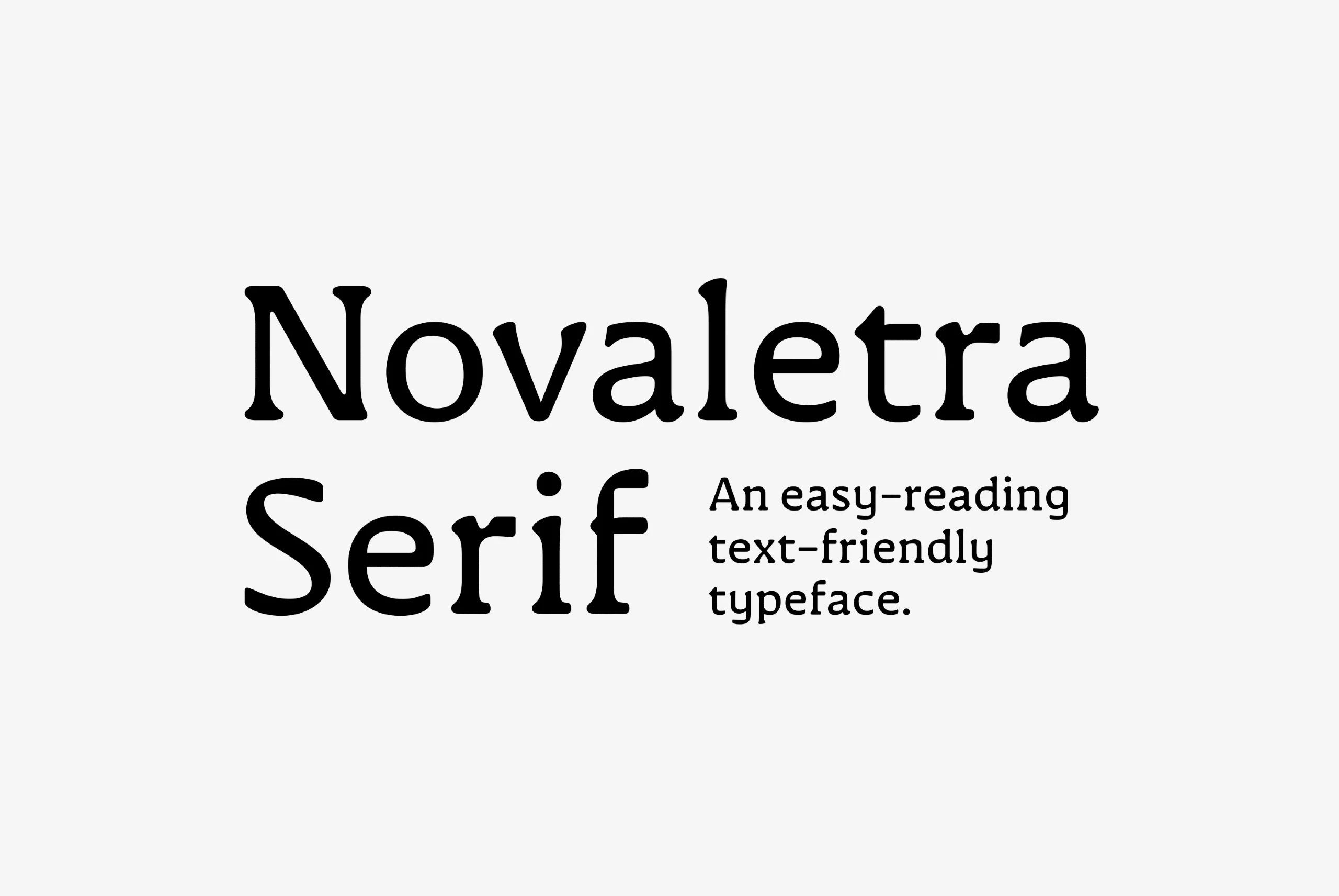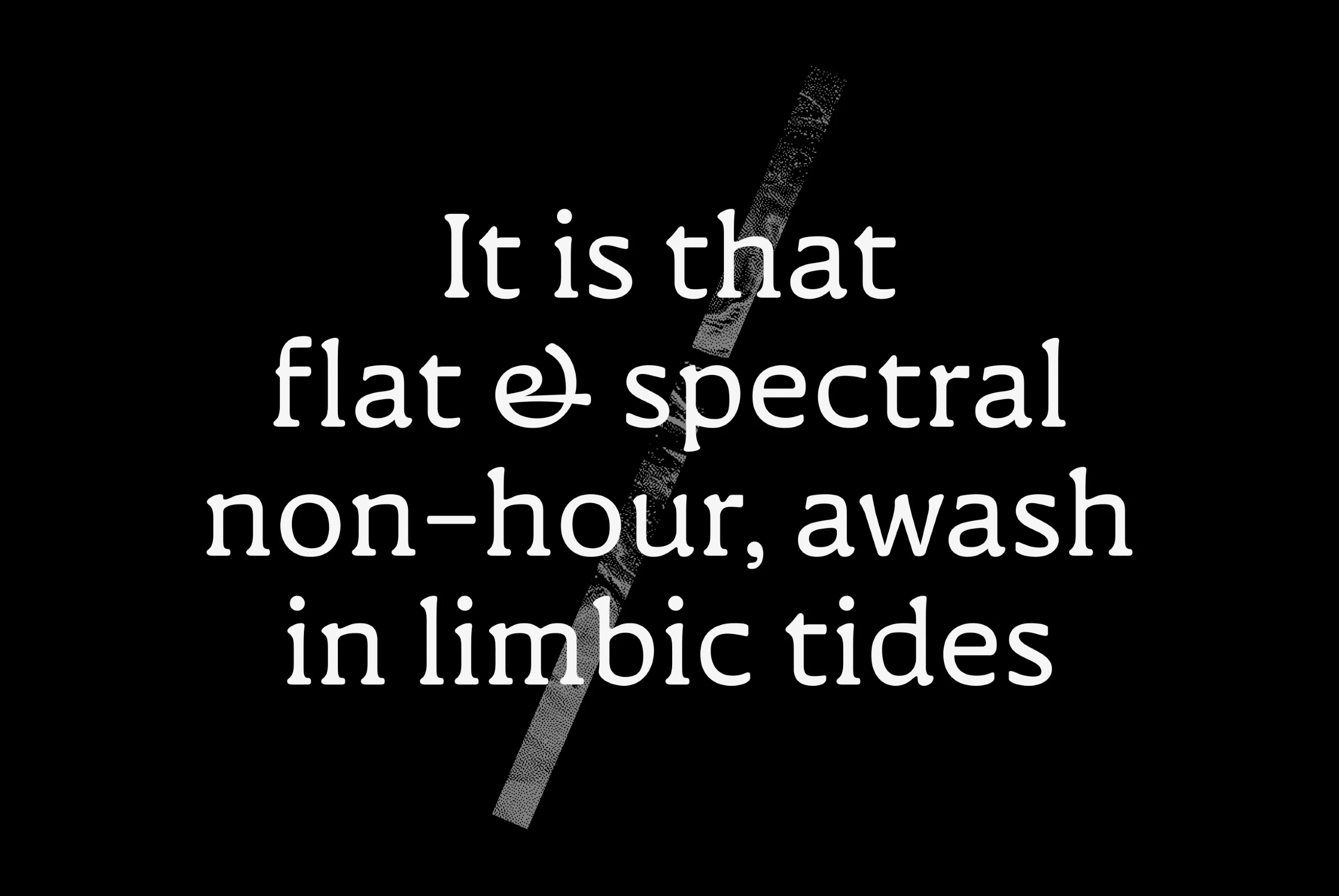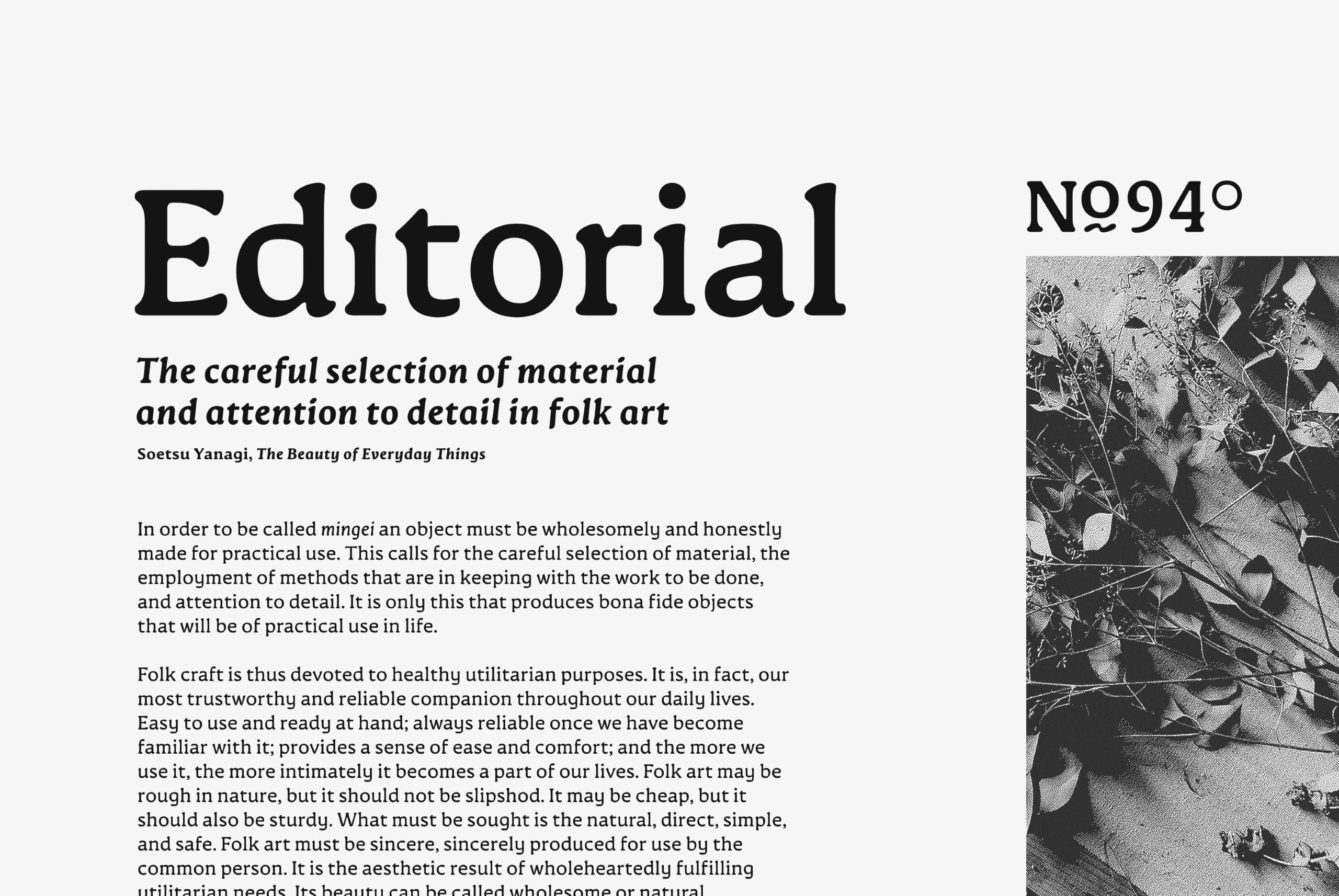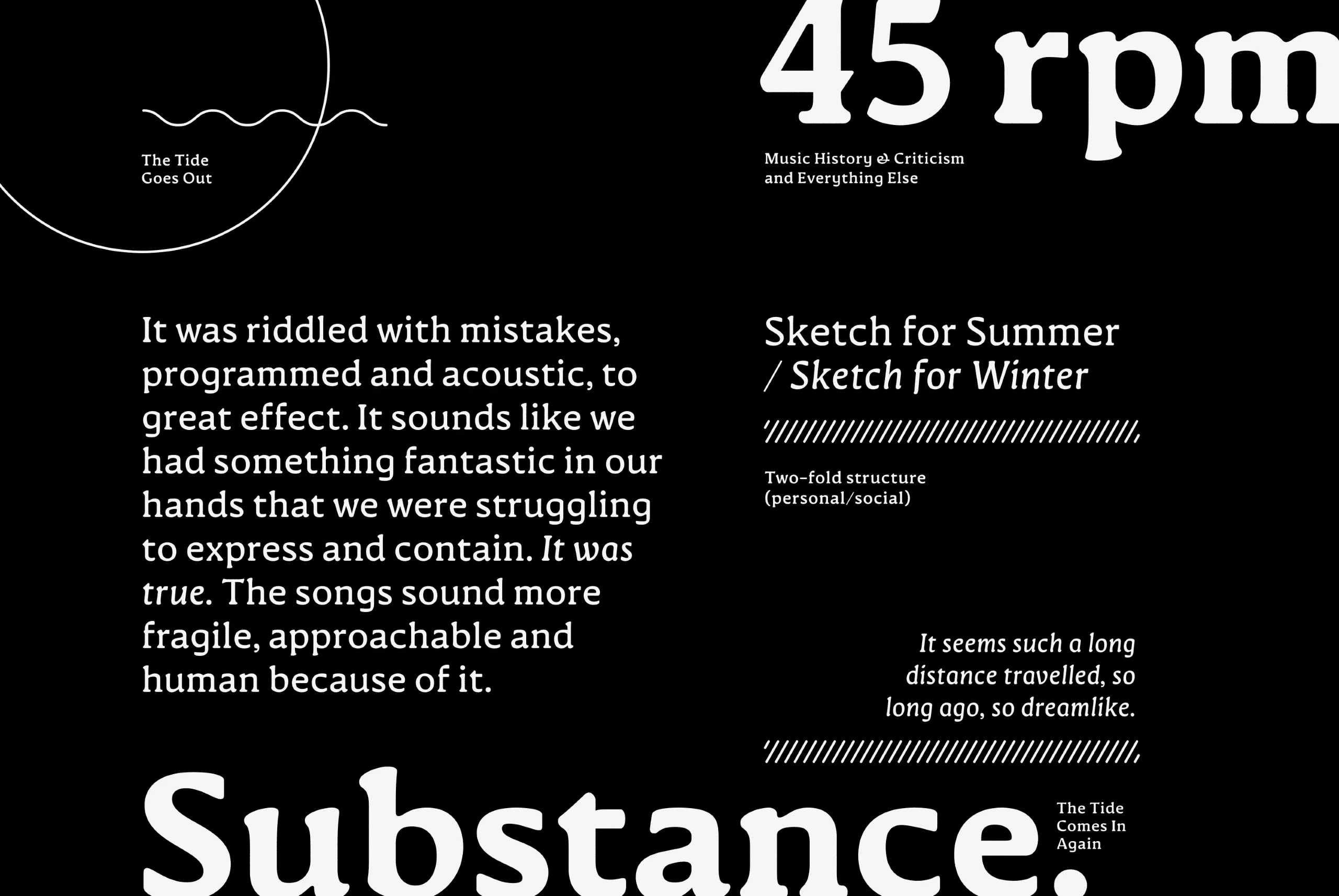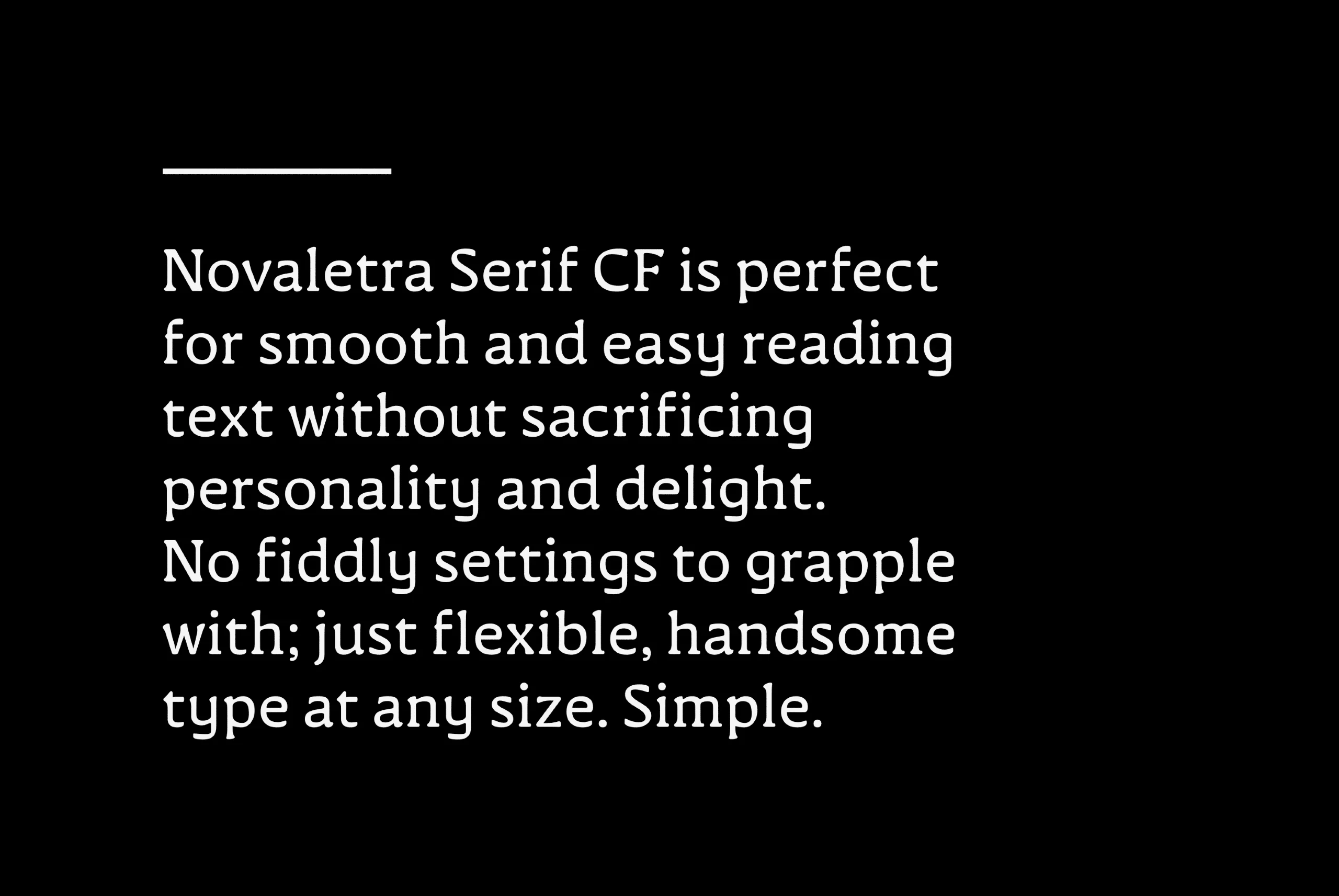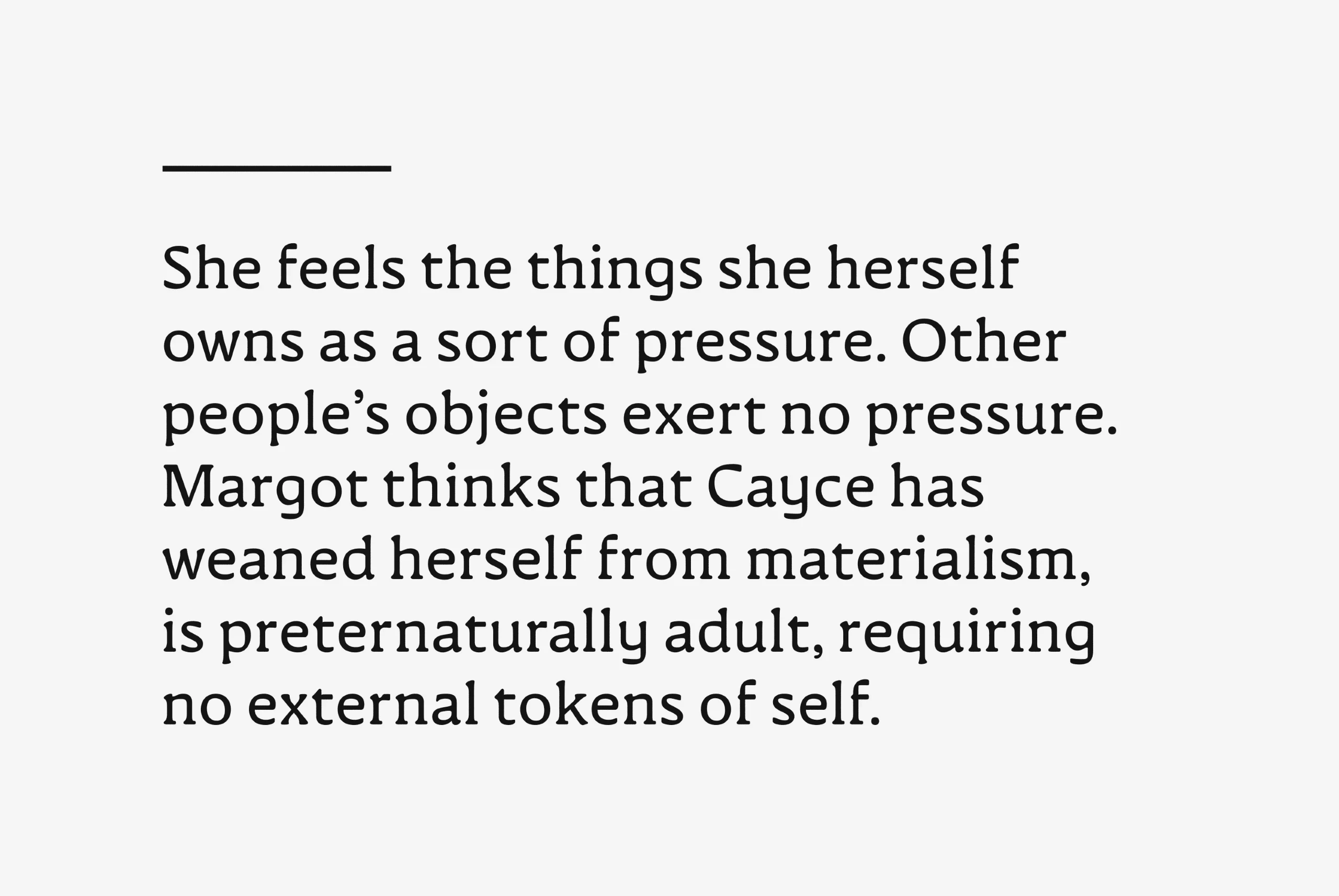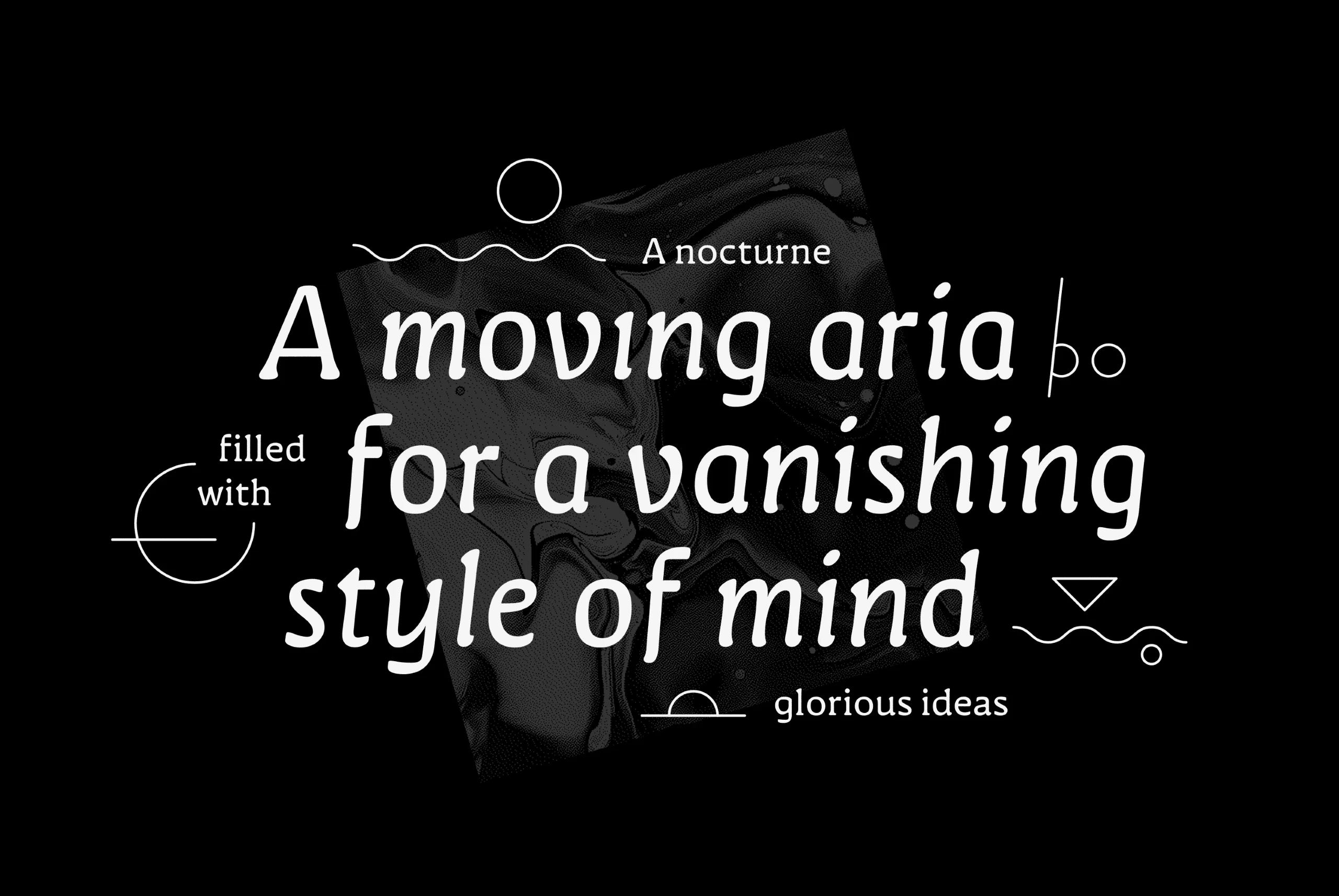
Novaletra Serif
Legibility. Flexibility. Personality. No need to pick two; Novaletra Serif CF has it all. Liven up body text, captions, and headlines with Novaletra’s smooth, low-contrast design set across seven weights with italics. Versatile and easy to read at any size, Novaletra includes useful features like wide language support across Latin and Cyrillic scripts, international currency symbols, fractions, tabular numbers, and more.
seven Weights in Latin & Vietnamese • Cyrillic Script
Language support includes Belarusian, Bulgarian, Catalan, Chinese Pinyin, Croatian, Czech, Danish, Dutch, English, Filipino, Finnish, French, Fula, German, Hungarian, Indonesian, Italian, Kazakh, Latvian, Macedonian, Malay, Maltese, Norwegian, Polish, Portuguese, Romanian, Russian, Serbian, Slovak, Slovenian, Spanish, Swedish, Turkish, Ukrainian, Uzbek, Vietnamese